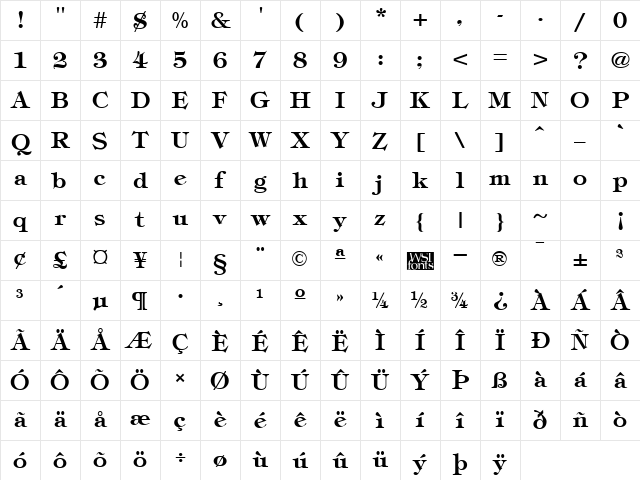
Timbrel Bold
Design Context for Timbrel
Timbrel is a composed and adaptable typeface that performs quietly and consistently across a wide range of design contexts. Its bold stroke weight gives it real presence on the page.